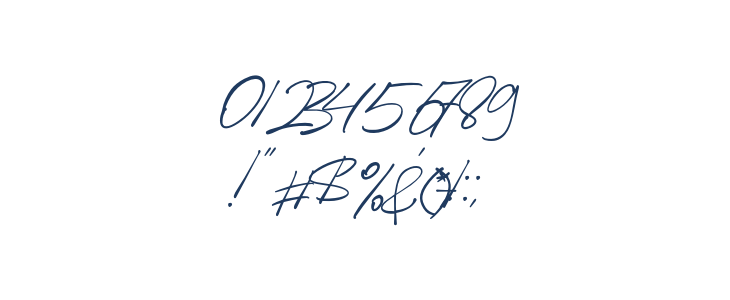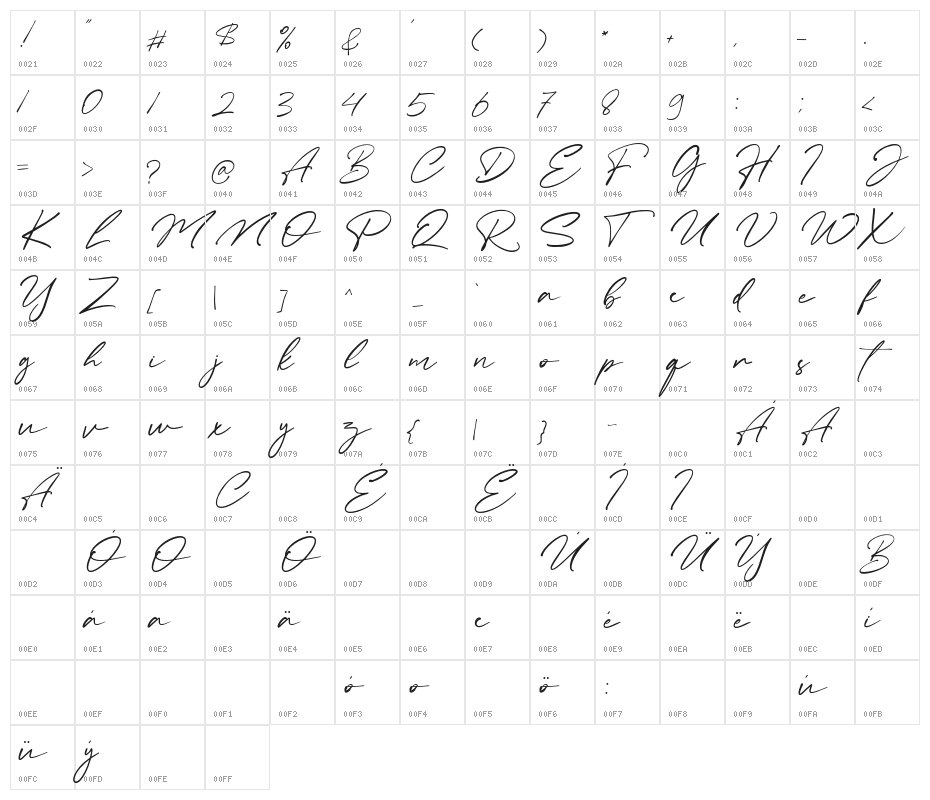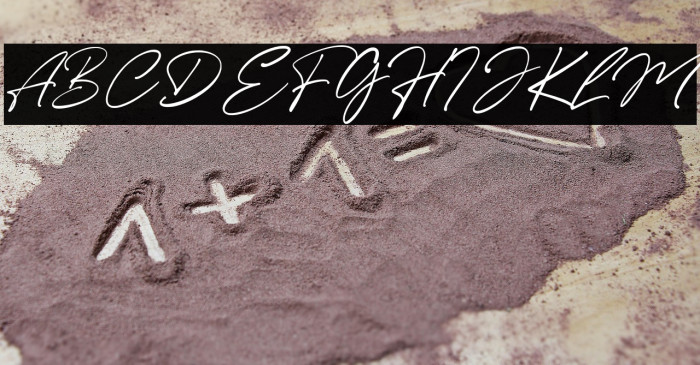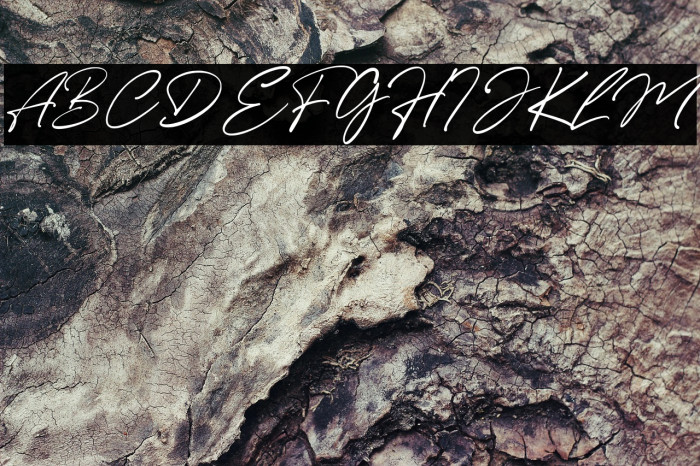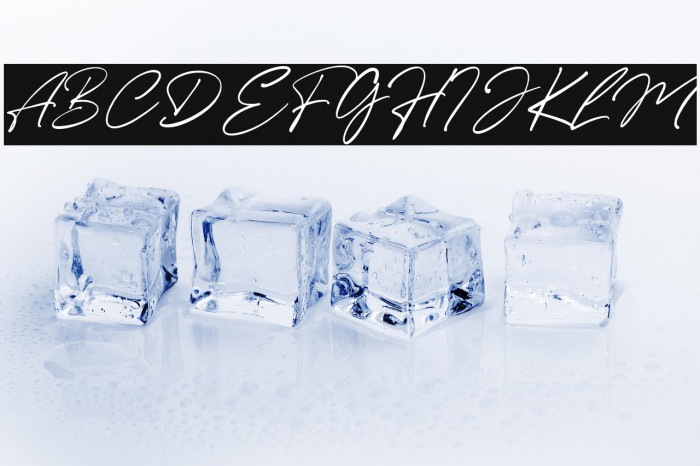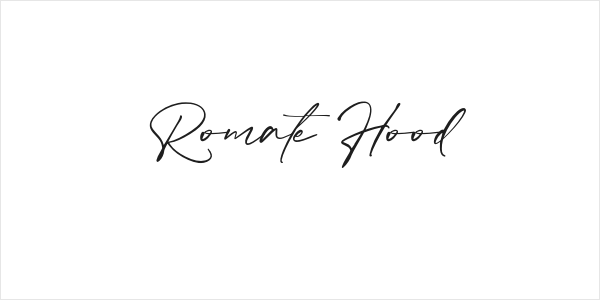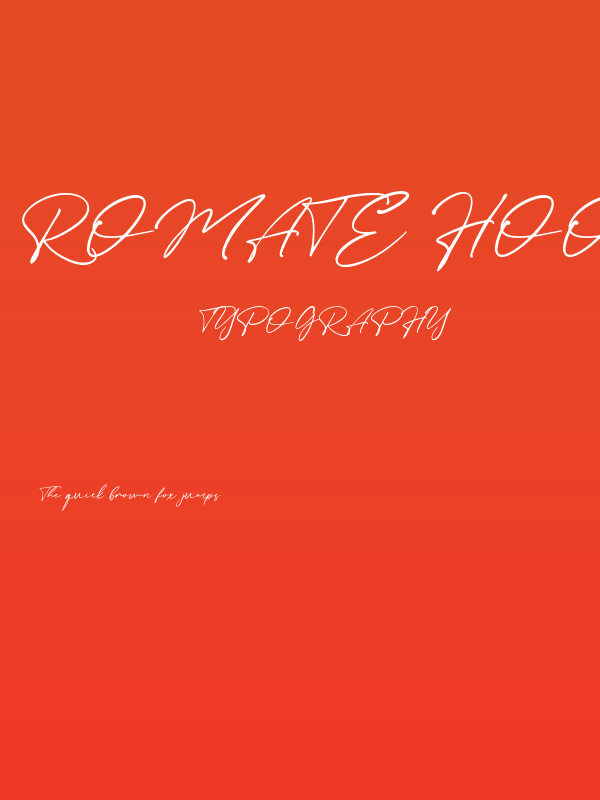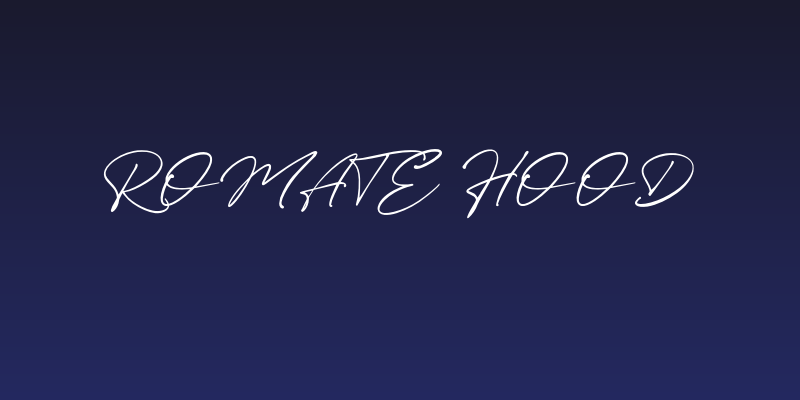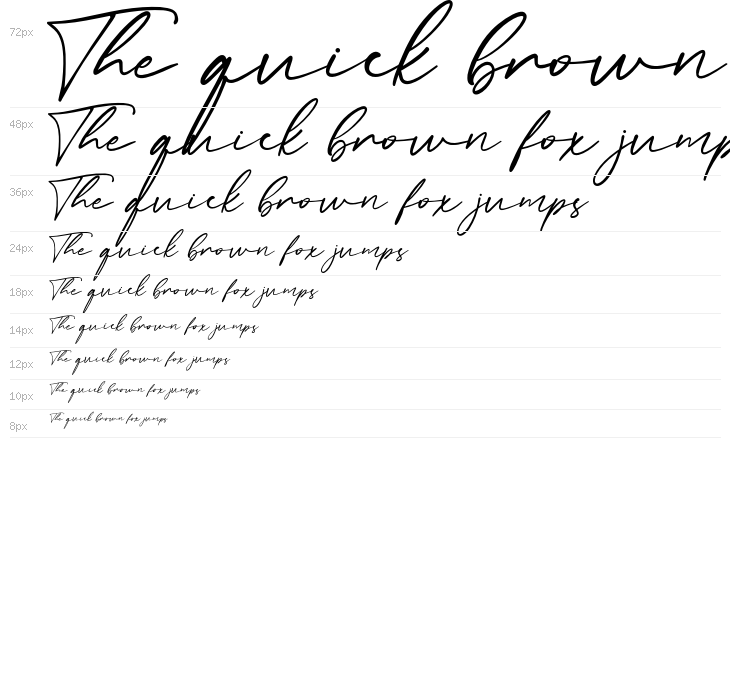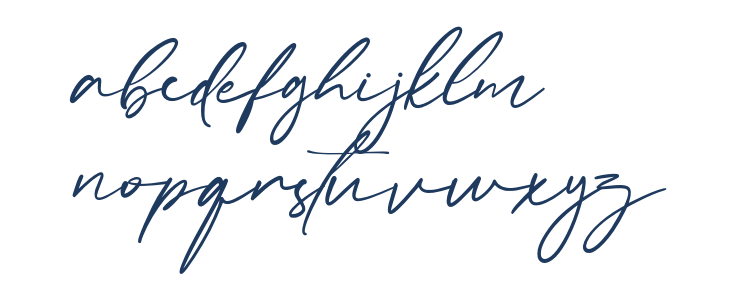
Romate Hood Font
Romate Hood Description
This font exudes a dynamic and elegant handwritten style, characterized by fluid and continuous strokes that mimic natural handwriting. The uppercase letters are slightly slanted, giving a sense of movement and grace, while the lowercase letters maintain a consistent flow with occasional loops and flourishes. The numerals and special characters complement the alphabet with similar fluidity and style. The overall appearance is both sophisticated and approachable, making it suitable for a variety of creative applications.
Overall StyleElegant
Use CaseLogos, Invitations, Artistic projects
Proposed ProjectsIdeal for wedding invitations, personal branding, greeting cards, and artistic projects that require a personal touch.